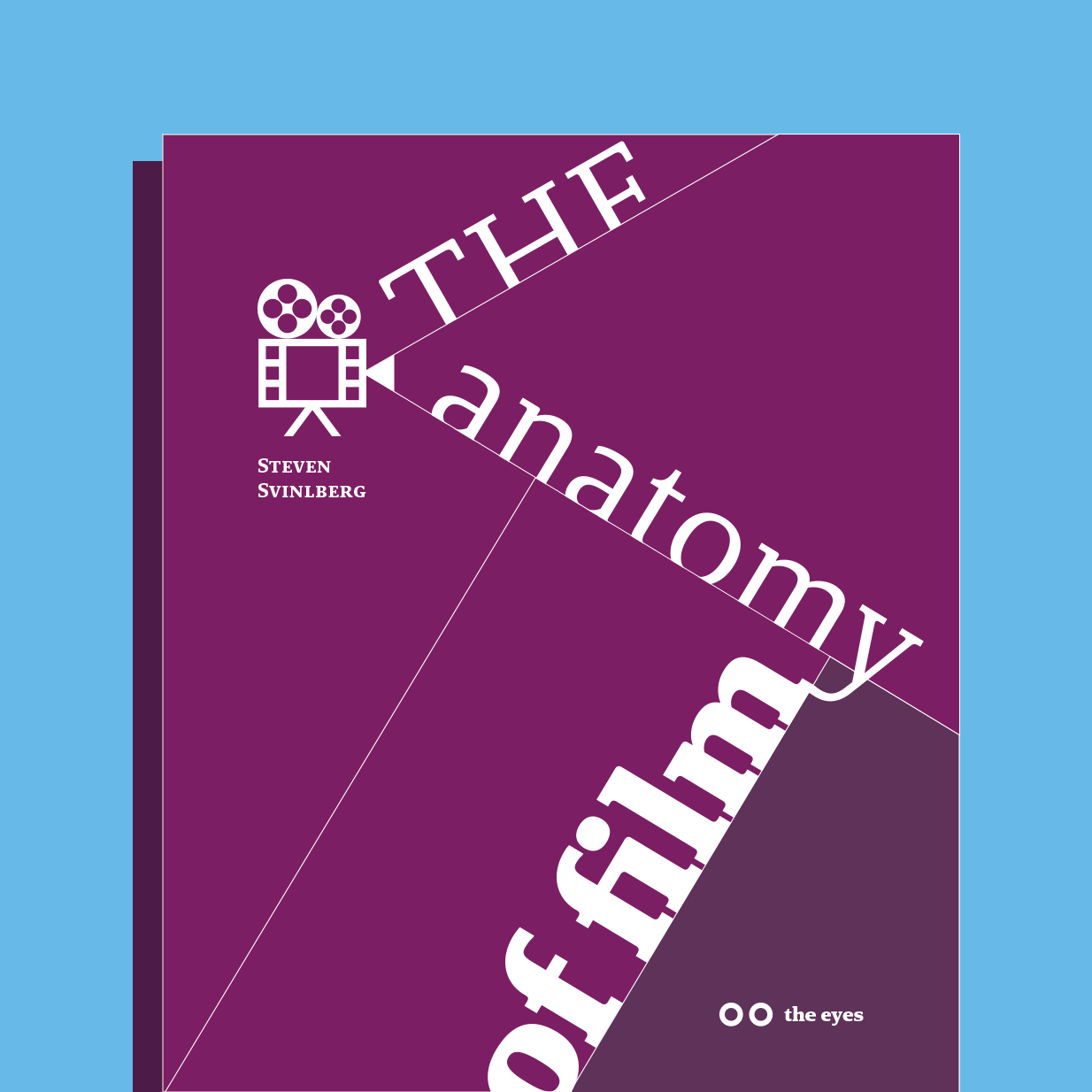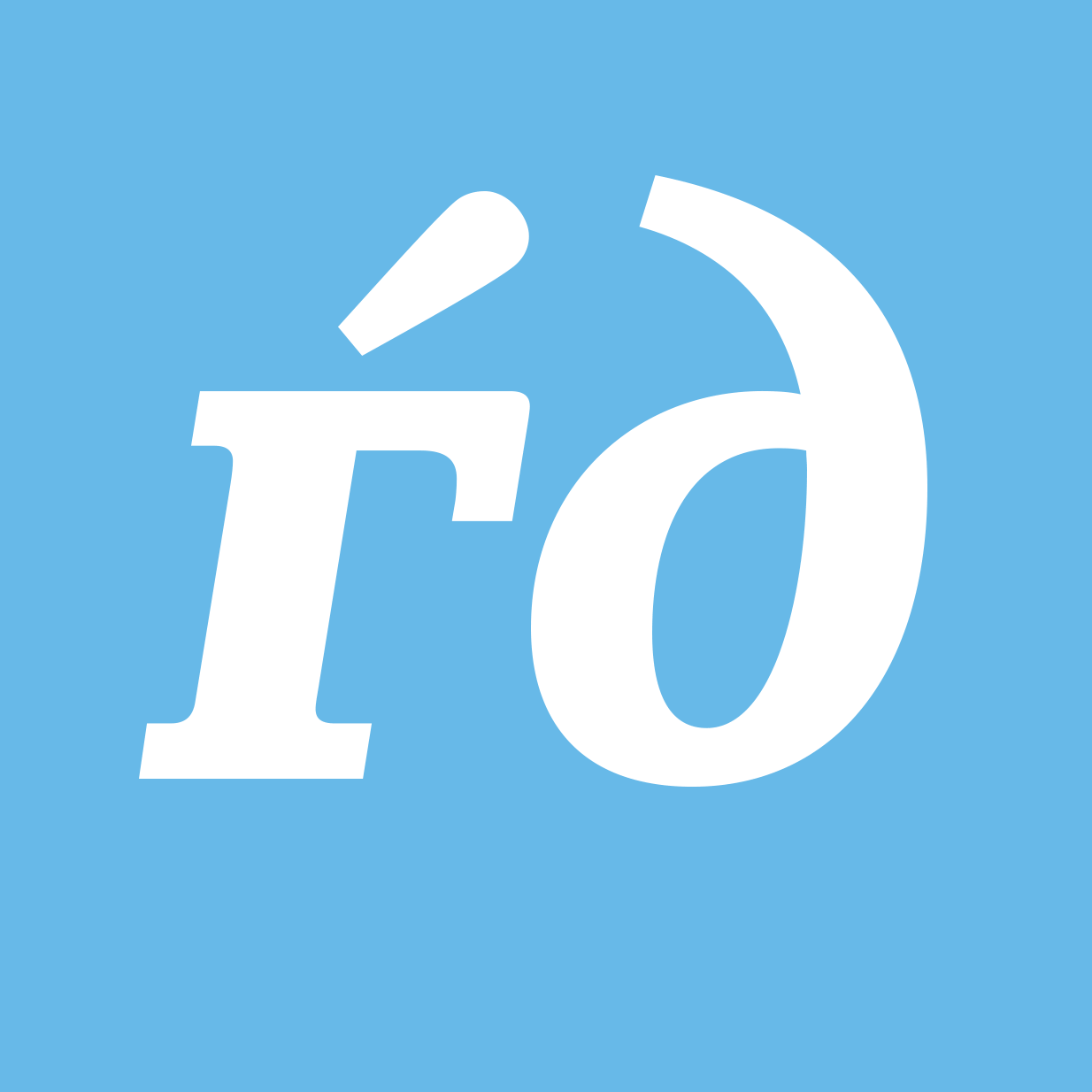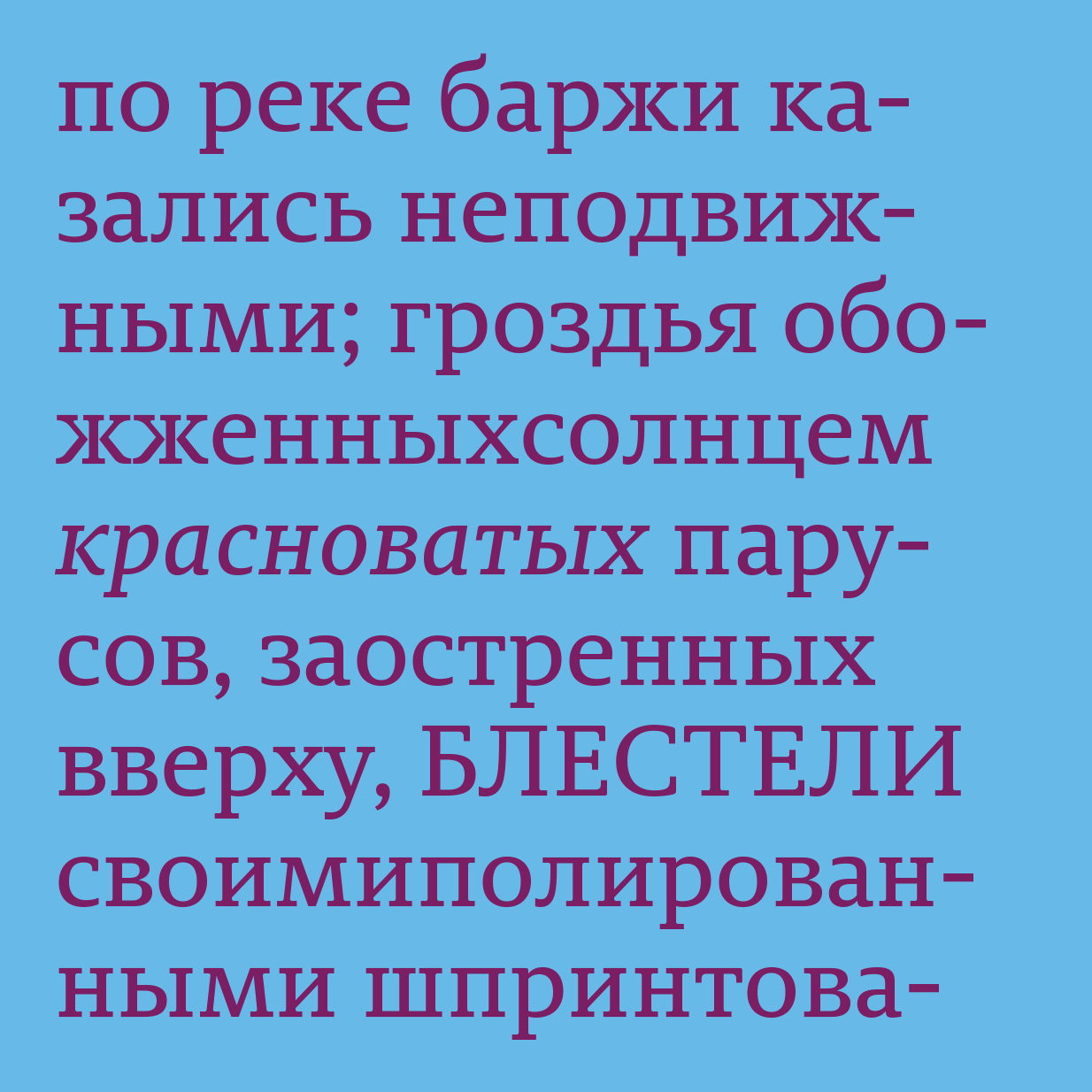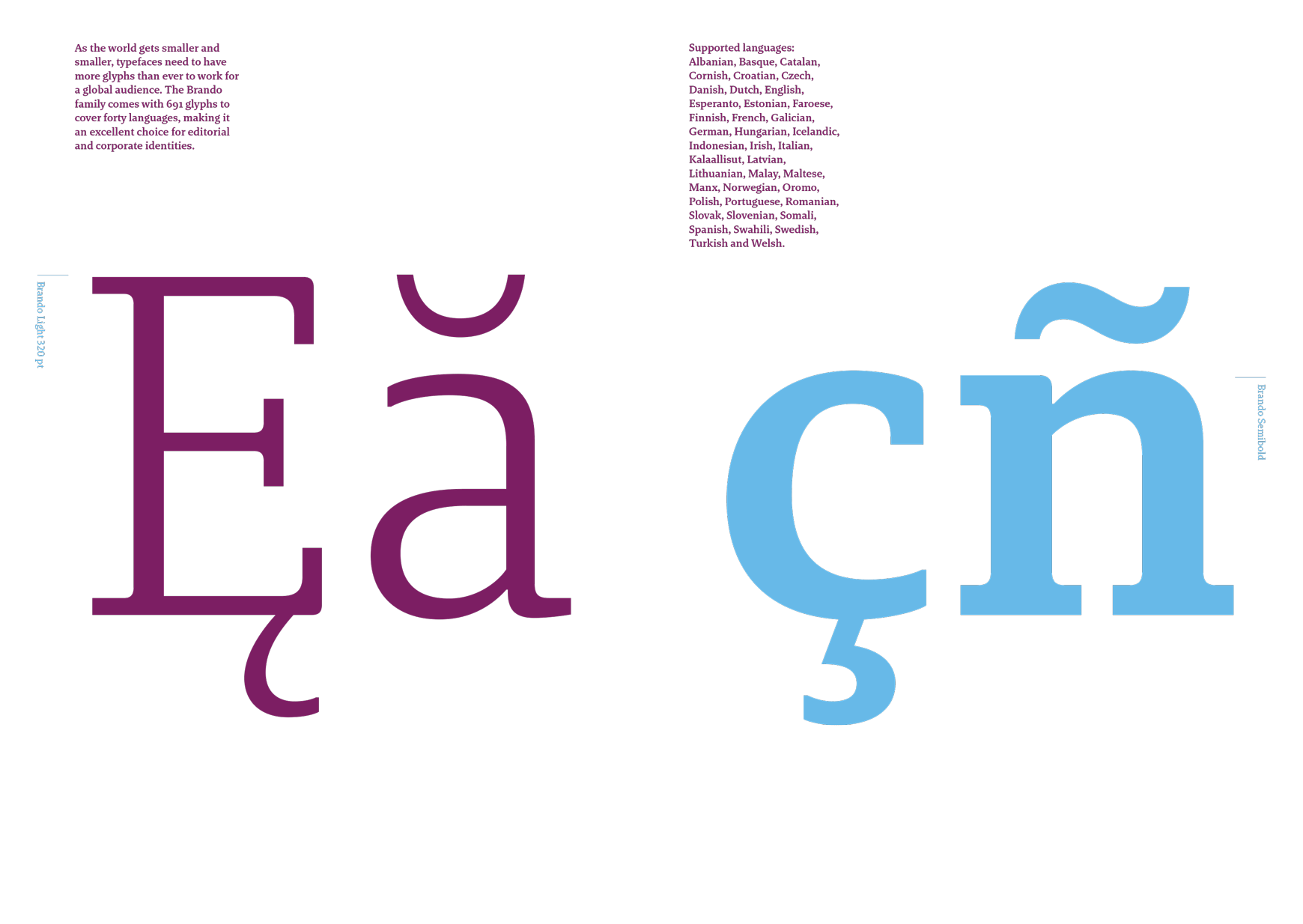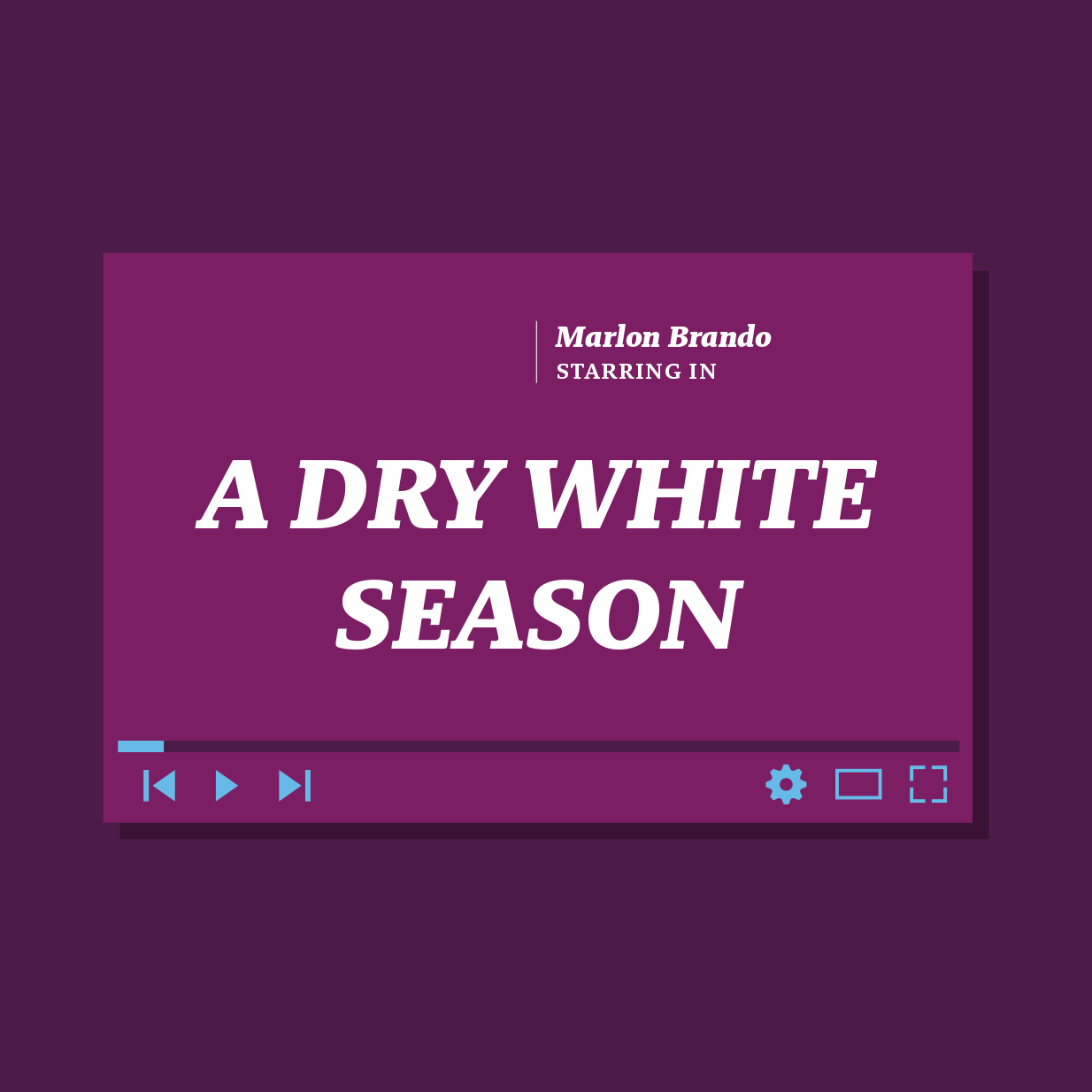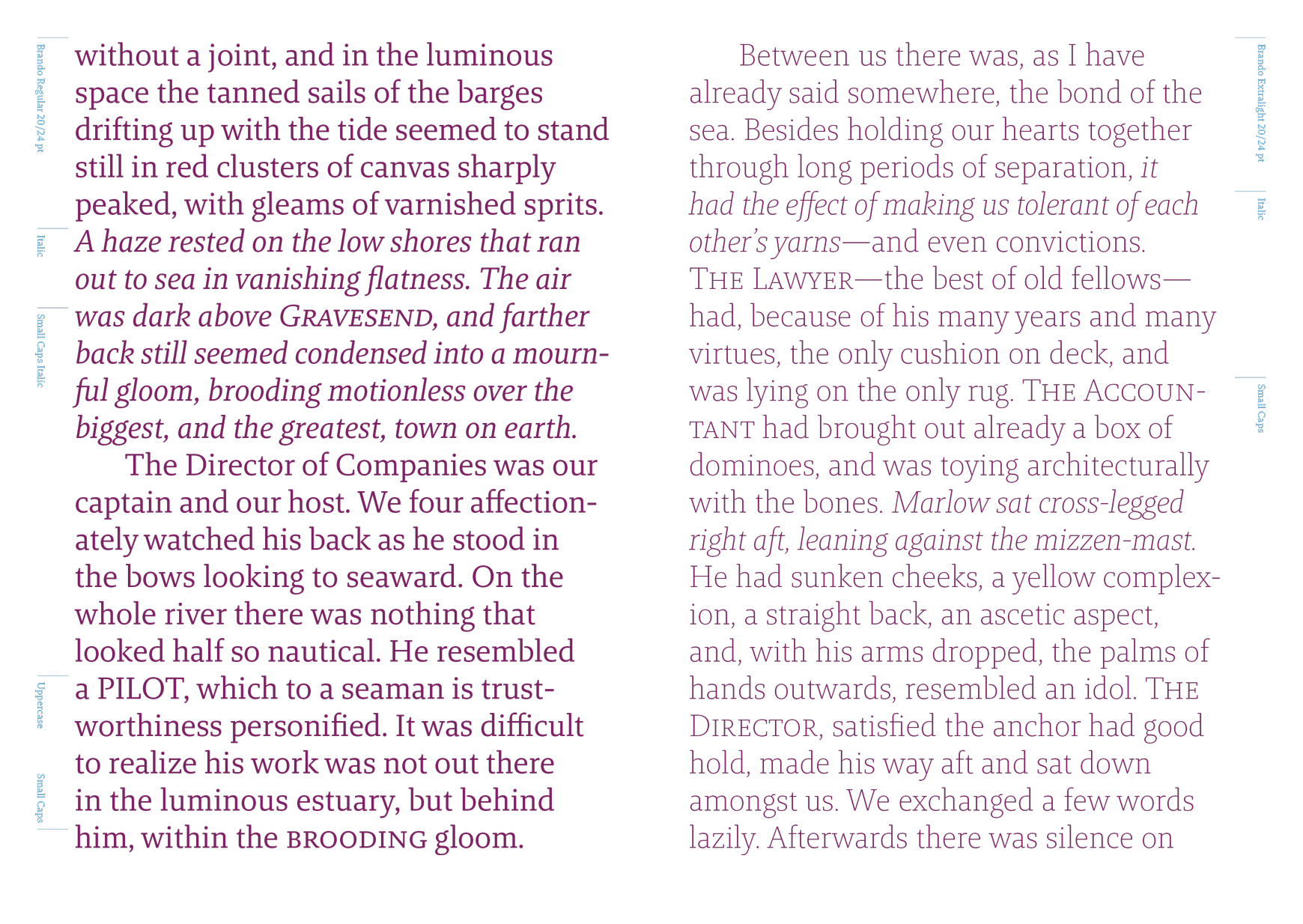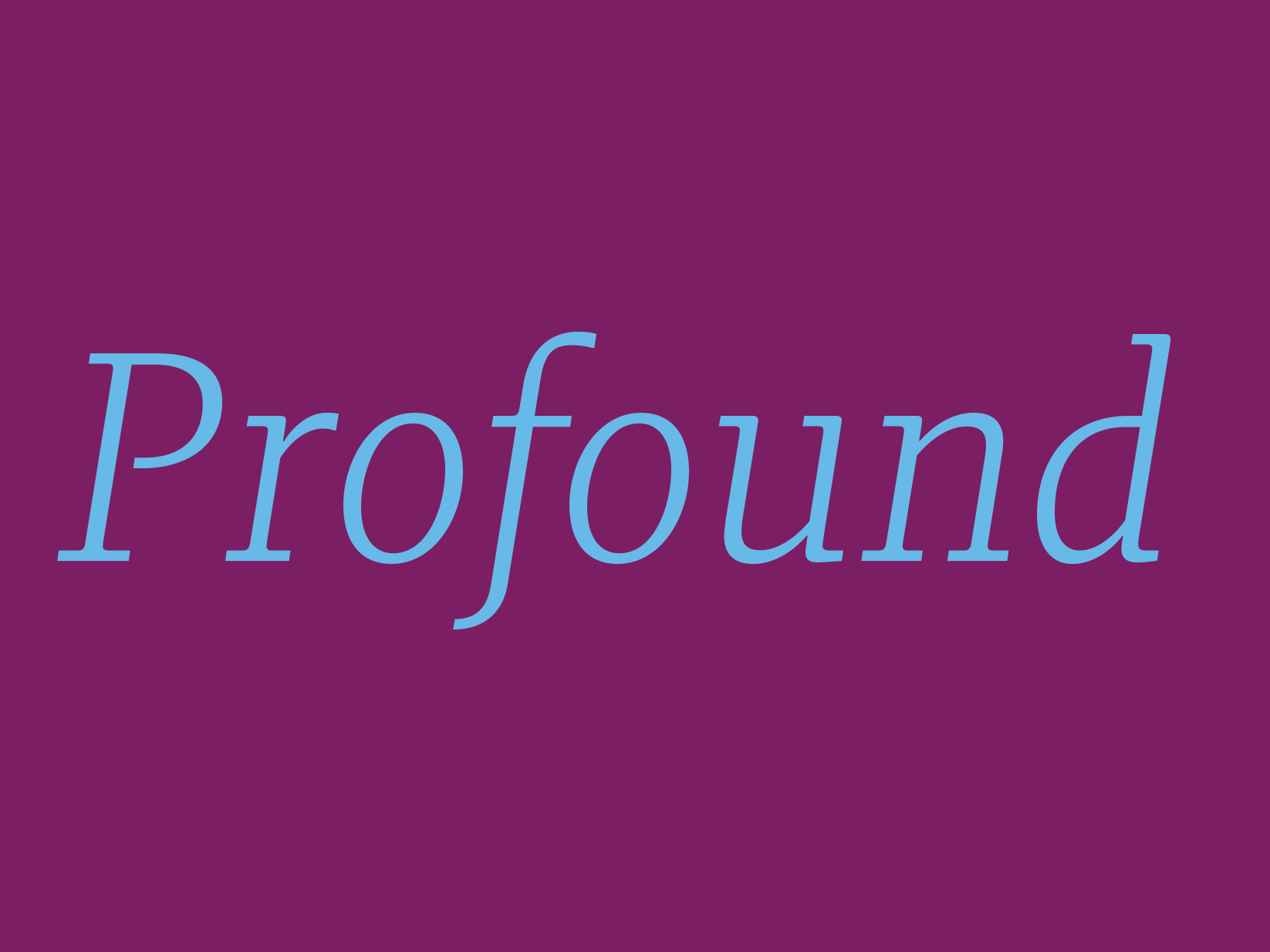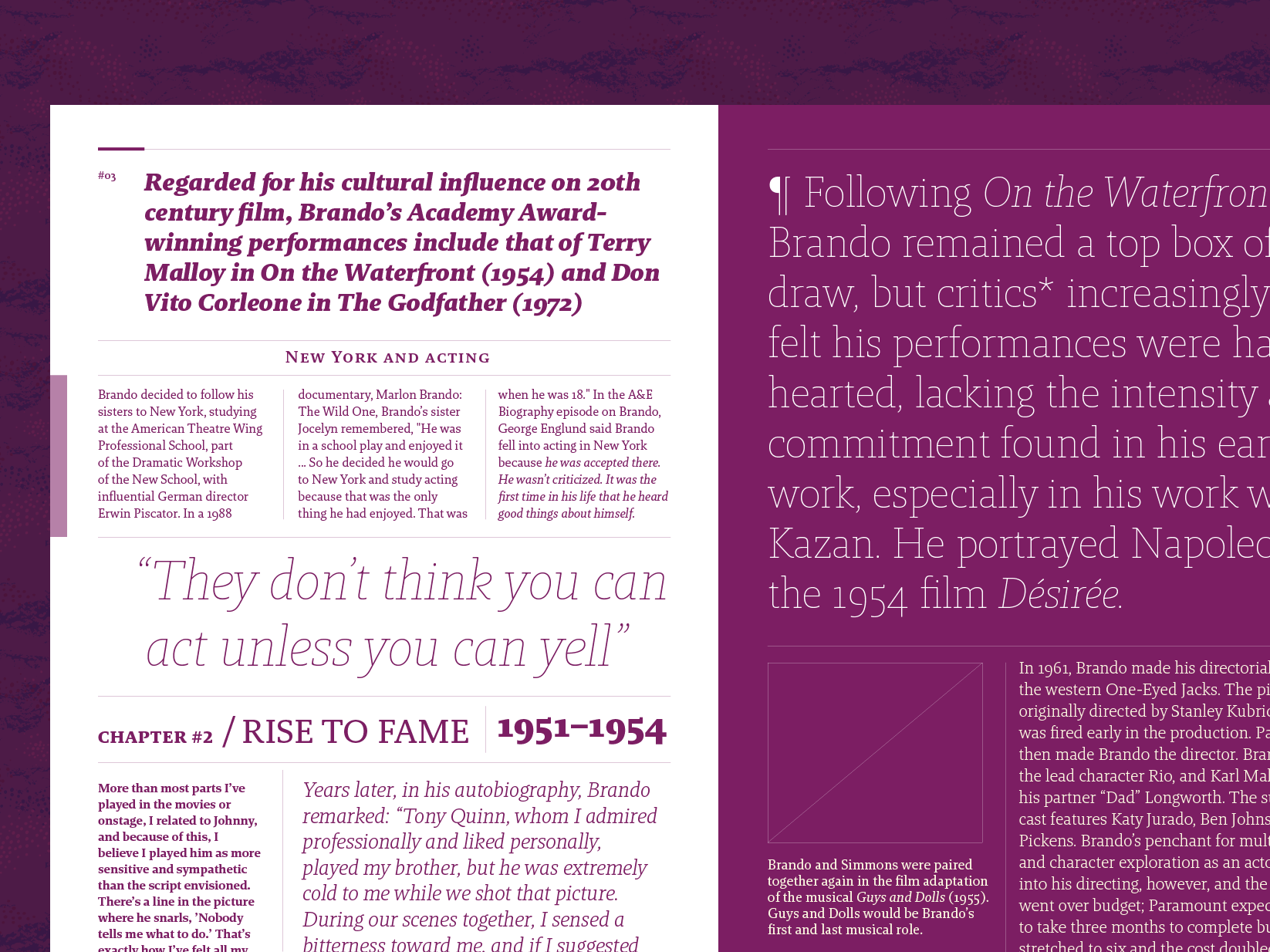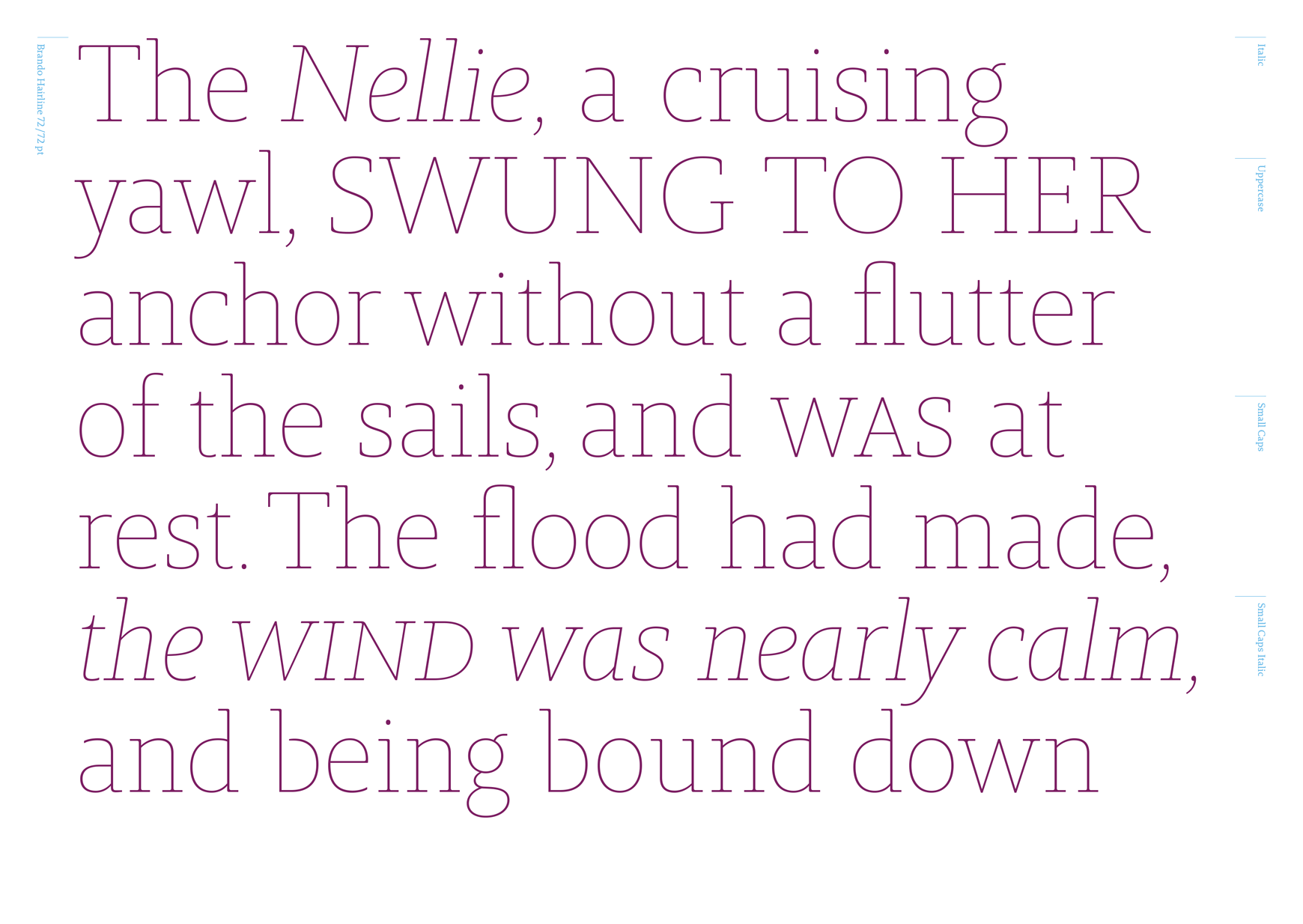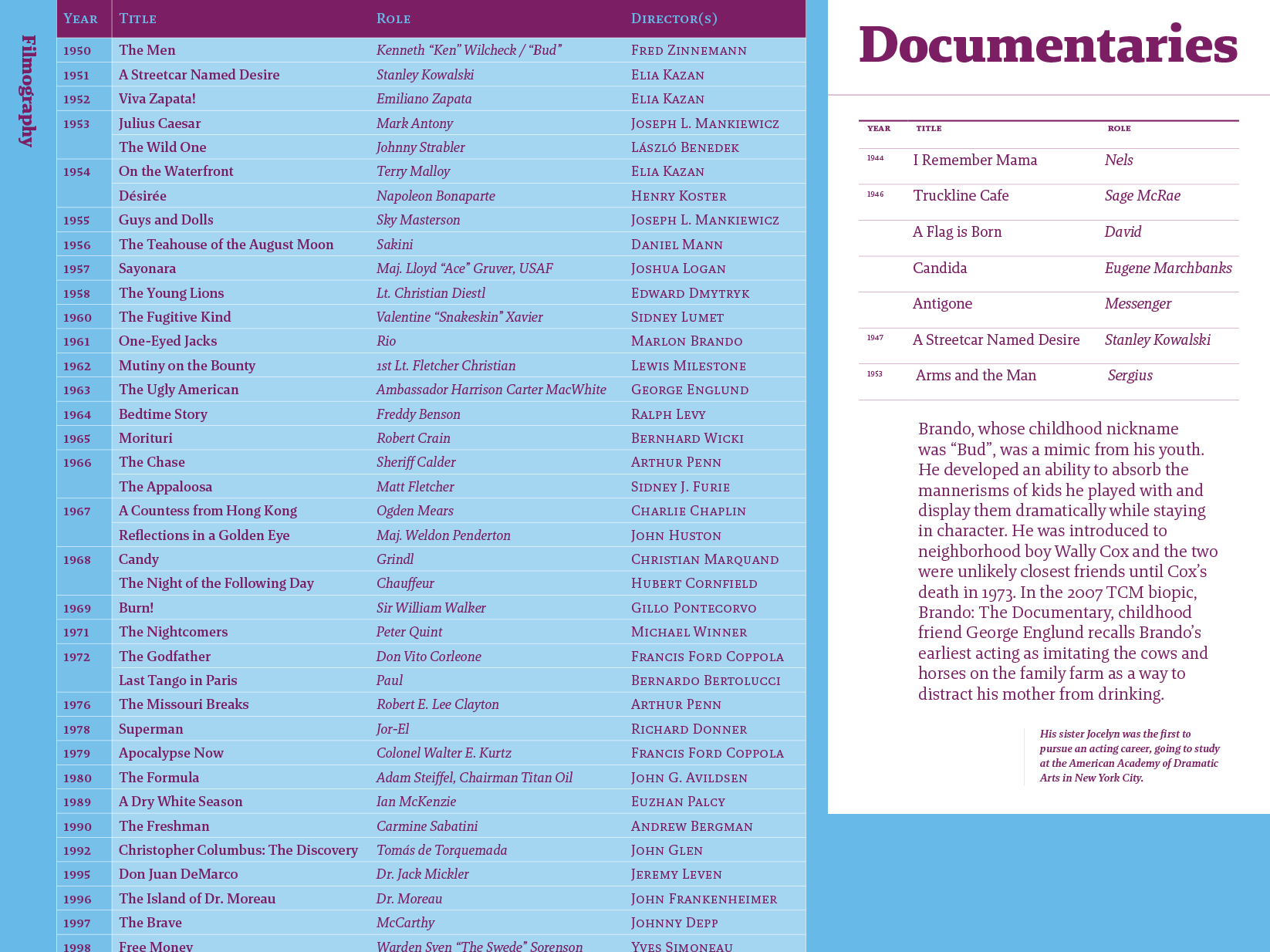
Brando is a contemporary serif with humanist proportions, exploring the balance between mechanical and egyptian forms. It was originally inspired by a bank logotype proposal, then subsequently developed into the robust typeface it is today. The careful interaction of rigid and fluid strokes give Brando its modern appeal and sturdiness. The light styles of Brando assume the shape of an elegant slab-serif with open letterforms, while the heavier weights feature just the right amount of contrast to give it an even and comfortable texture in text. The distinctive Italics strike a harmonious balance between true Italics and Oblique with letterforms that are supple and vigorous alike.
The Brando family comes in eight weights — Hairline to Black — making it ideal for display settings as well as the rigorous demands of text. It is perfect for editorial and identity design work that need typographic distinction and flexibility. The comprehensive character set, including small caps, a variety of figure styles, fractions and mathematical symbols covers over forty languages and make Brando fit for complex typographic systems of all kinds.
Brando has received a Type Directors Club Certificate of Typographic Excellence in 2015.
Mike Abbink
Aleksandra Samuļenkova
2012–2020